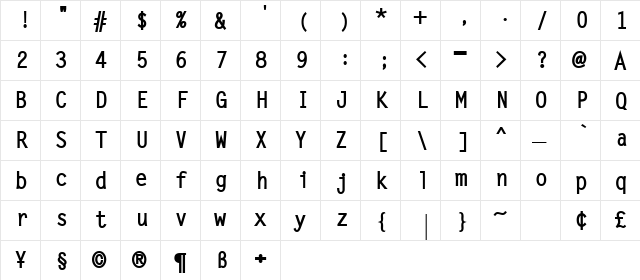
Adagio Bold
Design Context for Adagio Typeface
Adagio is a composed and adaptable typeface that performs quietly and consistently across a wide range of design contexts. Its bold stroke weight gives it real presence on the page.
Pro Tip: Use Adagio in both headline and body roles to test its range before committing to a single application.